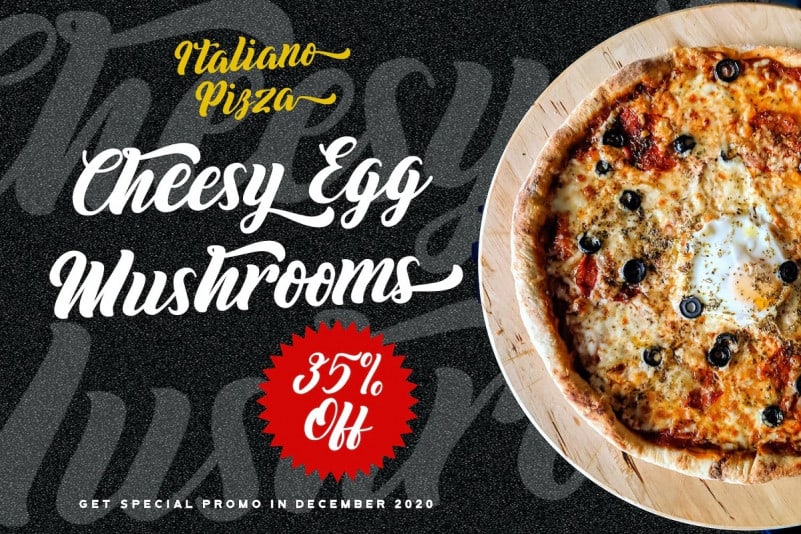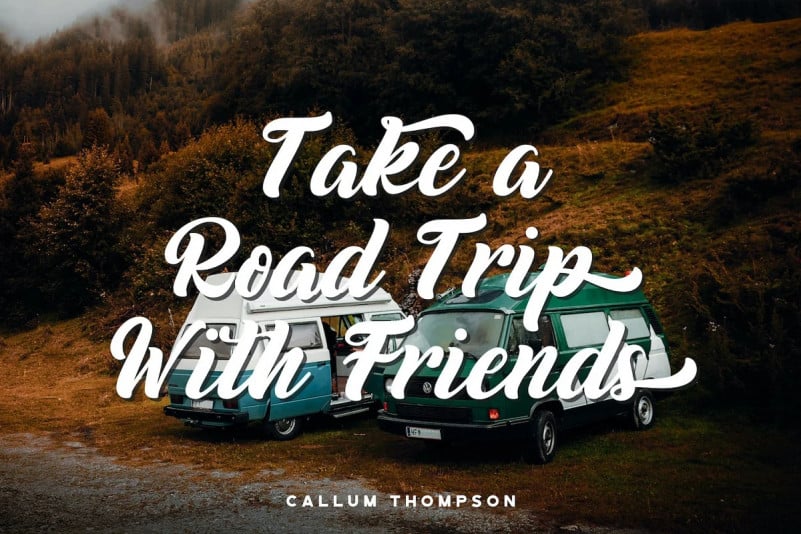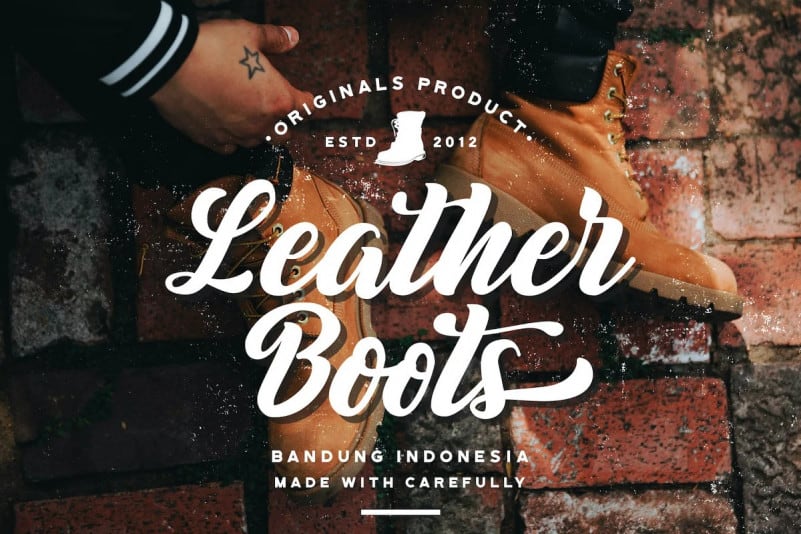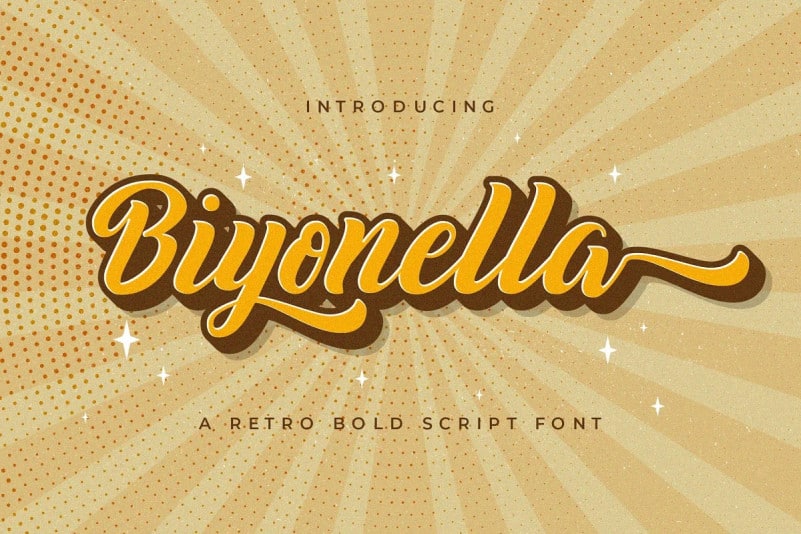
Biyonella Bold Script Font
Biyonella Bold Script Font is a beautiful handwritten script Typeface manufactured by StringLabs. Perfect for making elegant stylish statements – or adding a touch of class to your designs. It is curved, rounded, and has an unique vintage style, that is perfect for branding. Add it to your most creative ideas and notice how it makes them come alive!